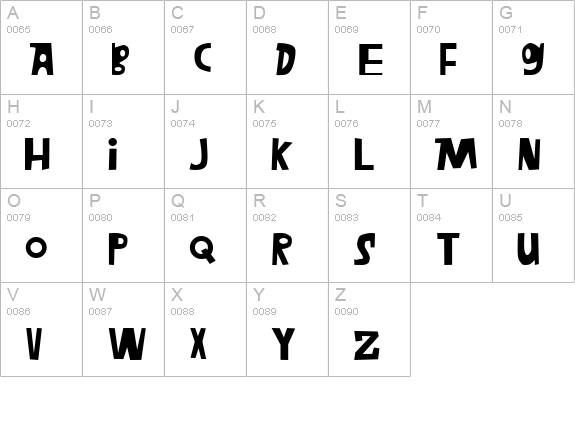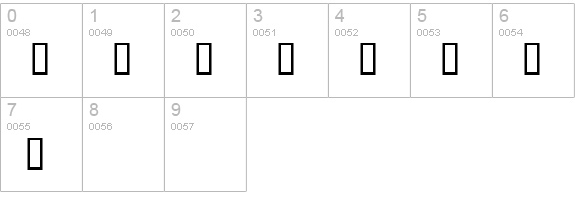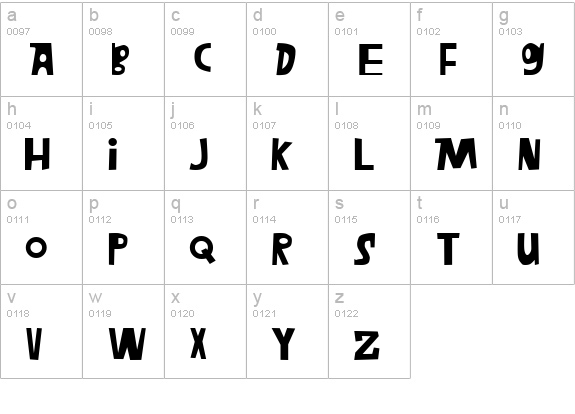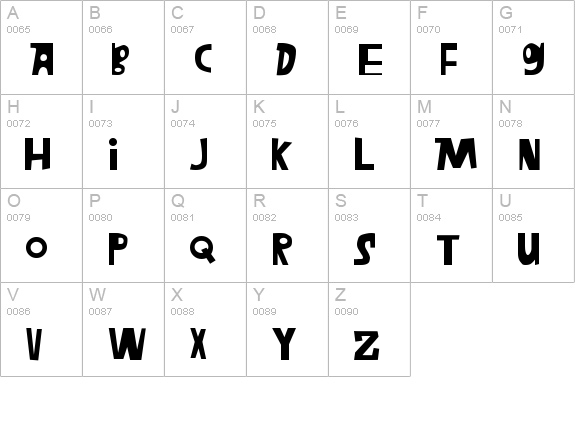
Megafon Font Details
Introducing Megafon, a modern and stylish font that exudes elegance and sophistication. With its sleek lines and bold presence, Megafon is perfect for a wide range of design projects, from branding to editorial design. This versatile font is sure to make a statement and elevate your creative work to the next level. And the best part? Megafon is completely free to download at FontsMarket.com. Don't miss out on this incredible opportunity to add a touch of class to your projects with Megafon font. Download it today and unleash your creativity!